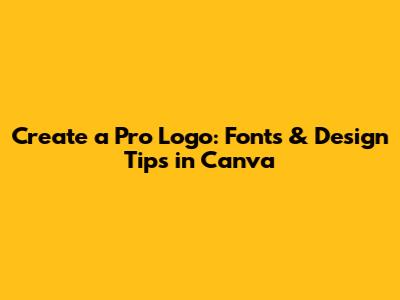
Creating a professional logo doesn't have to be a daunting task, especially with user-friendly platforms like Canva at your fingertips. Whether you're launching a new business, revamping your brand, or just curious about design, understanding the elements that make a logo effective is crucial. In this guide, we'll dive into how you can leverage Canva to design a logo that not only looks great but also resonates with your target audience.
Understanding Logo Design Principles
Before we jump into the specifics of using Canva, let's cover some essential logo design principles. These principles will serve as the foundation for creating a logo that stands the test of time and effectively communicates your brand's identity. Simplicity, memorability, timelessness, versatility, and appropriateness are the key pillars to consider.
Simplicity
A simple logo is easier to recognize and remember. Think about iconic logos like Nike's swoosh or Apple's apple. They're instantly recognizable because of their simplicity. When designing in Canva, avoid cluttering your logo with too many elements. Focus on a clean, concise design that conveys your brand's essence without overwhelming the viewer. Using negative space effectively can also contribute to a simple yet impactful design.
Memorability
A memorable logo sticks in people's minds. It's the logo they recall when they think about your brand. To create a memorable logo, consider using unique shapes, colors, or typography. A distinctive visual element can help your logo stand out from the competition. Canva offers a wide range of design elements that you can customize to create a unique and memorable logo.
Timelessness
A timeless logo remains relevant for years to come. Avoid trendy design elements that may quickly become outdated. Instead, focus on creating a classic design that will stand the test of time. Research logos from established brands that have maintained their relevance over the years. Analyze what makes them timeless and apply those principles to your own logo design in Canva. Opt for fonts and color palettes that are versatile and enduring.
Versatility
A versatile logo works well across various applications, from business cards to websites to social media profiles. Ensure your logo looks good in different sizes and formats. Consider creating variations of your logo for different uses, such as a horizontal version for website headers and a vertical version for social media profiles. Canva allows you to easily resize and adapt your logo for different platforms, ensuring it always looks its best.
Appropriateness
The logo should be appropriate for your target audience and industry. A playful, cartoonish logo may be suitable for a children's brand, but it wouldn't be appropriate for a financial institution. Consider the values and expectations of your target audience when designing your logo. Research logos from other companies in your industry to get a sense of what works and what doesn't. Use Canva to experiment with different styles and approaches until you find a logo that aligns with your brand's identity and resonates with your audience.
Choosing the Right Fonts in Canva
Selecting the right font is a critical aspect of logo design. The font you choose can significantly impact the overall look and feel of your logo. Canva offers a vast library of fonts, but it's essential to choose one that aligns with your brand's personality and message. Here's a guide to help you navigate Canva's font selection and make the right choice.
Understanding Font Types
Before diving into Canva's font library, it's helpful to understand the different types of fonts. The main categories include serif, sans-serif, script, and display fonts. Serif fonts have small decorative strokes at the end of each letter, while sans-serif fonts do not. Script fonts resemble handwriting, and display fonts are more decorative and attention-grabbing. Each type of font conveys a different tone and feeling. Serif fonts often evoke a sense of tradition and authority, while sans-serif fonts are perceived as modern and clean. Script fonts can add a touch of elegance or playfulness, and display fonts are ideal for making a bold statement. Knowing these distinctions will help you narrow down your font choices in Canva and select one that aligns with your brand's identity.
Pairing Fonts Effectively
In some cases, you may want to use two different fonts in your logo to create visual interest. However, it's crucial to pair fonts effectively to avoid a jarring or cluttered look. A general rule of thumb is to pair a serif font with a sans-serif font. For example, you could use a serif font for your brand name and a sans-serif font for your tagline. Another approach is to use different weights or styles of the same font family. Canva makes it easy to experiment with different font pairings and see what works best for your logo. Consider the hierarchy of information when pairing fonts. The more important element, such as your brand name, should be in a more prominent font. The less important element, such as your tagline, can be in a smaller or less noticeable font.
Considering Font Legibility
While aesthetics are important, font legibility should be your top priority. A beautiful font is useless if people can't read it. Ensure the font you choose is clear and easy to read, even at small sizes. Avoid overly decorative or stylized fonts that may be difficult to decipher. Test your logo with different fonts and sizes to see how they appear on various devices and platforms. Canva allows you to preview your logo in different contexts, making it easier to assess font legibility. Consider the spacing between letters and words. Tight spacing can make a font difficult to read, while excessive spacing can make it look disjointed. Adjust the letter spacing and line height in Canva to optimize readability.